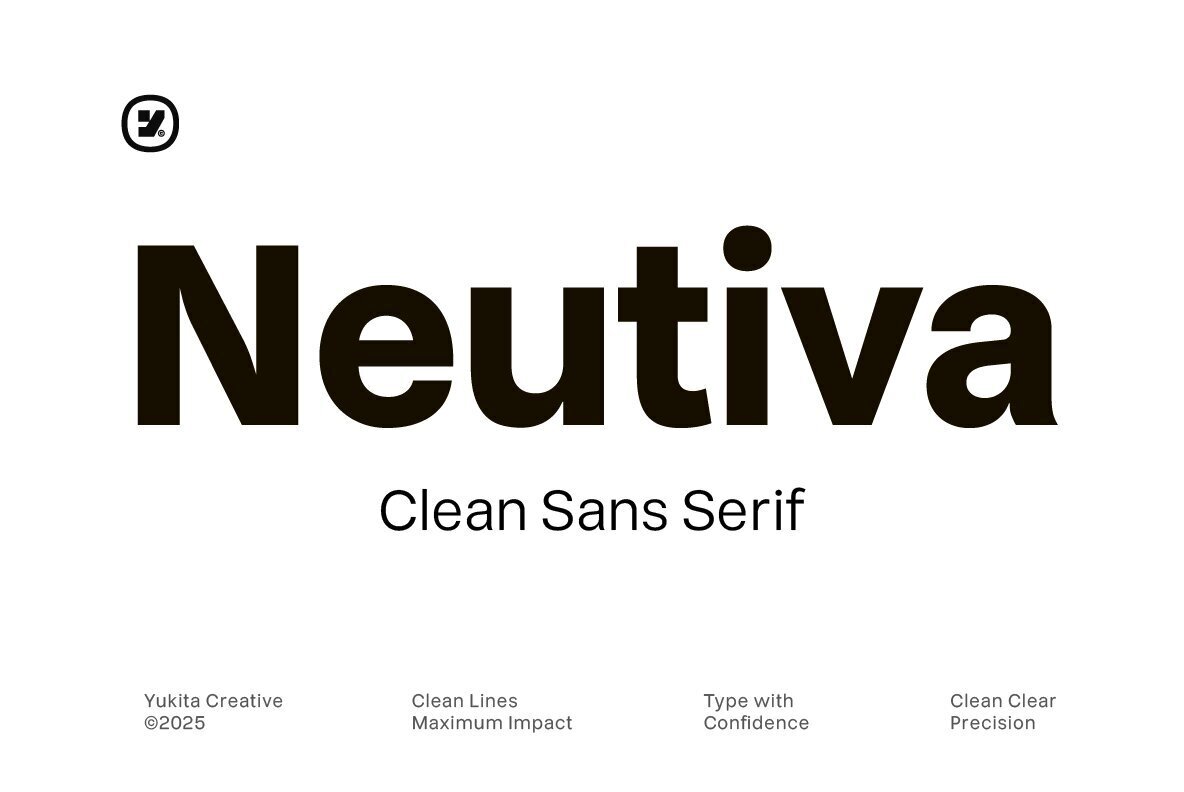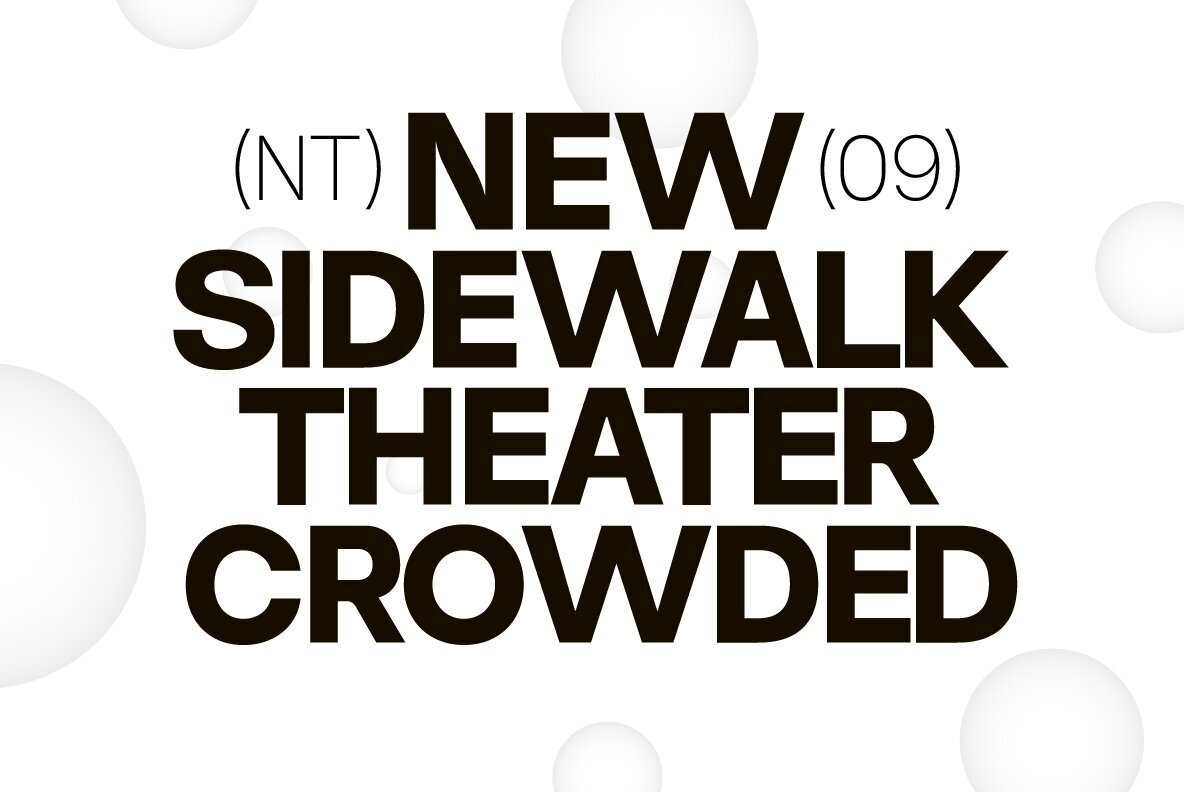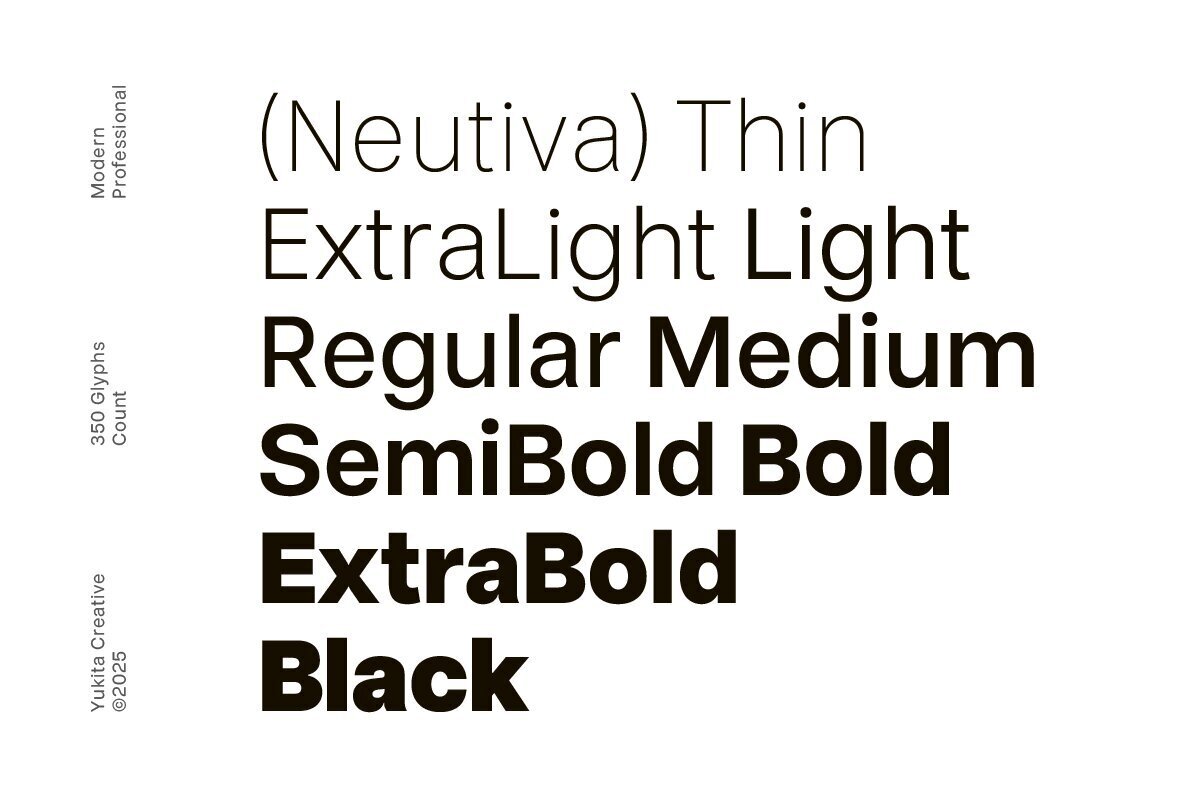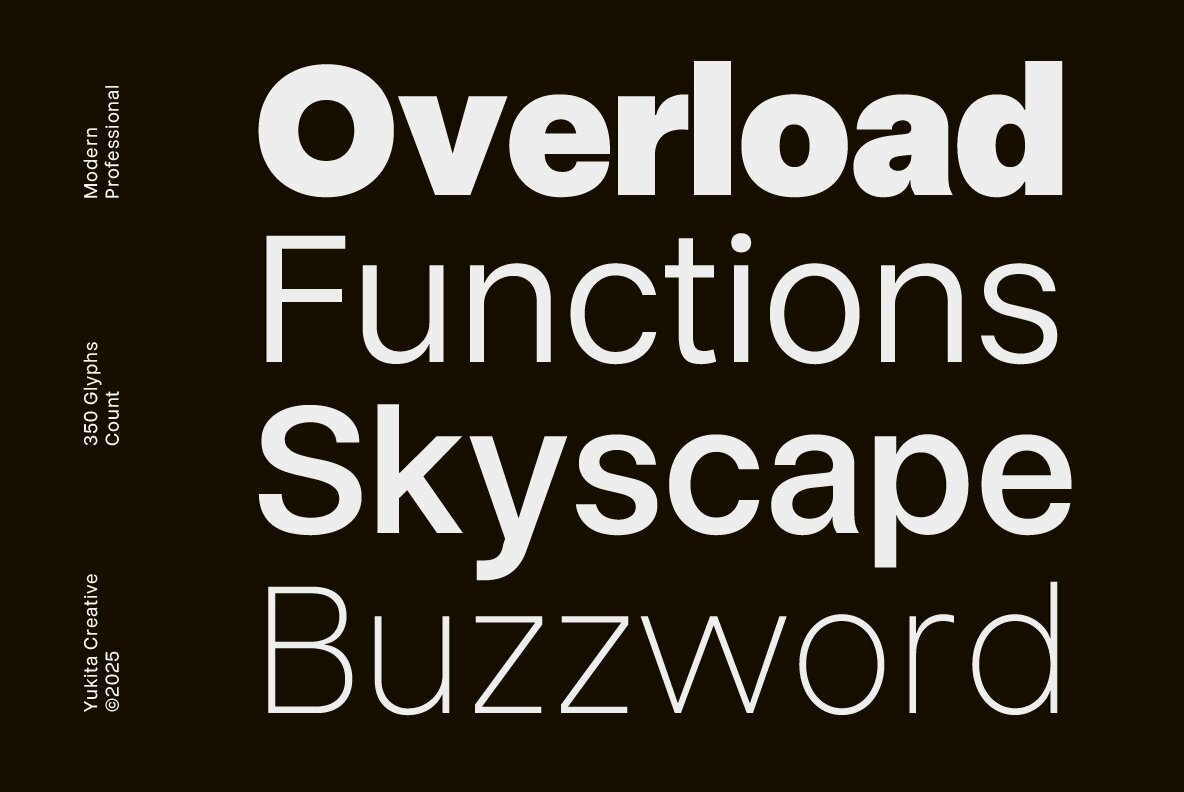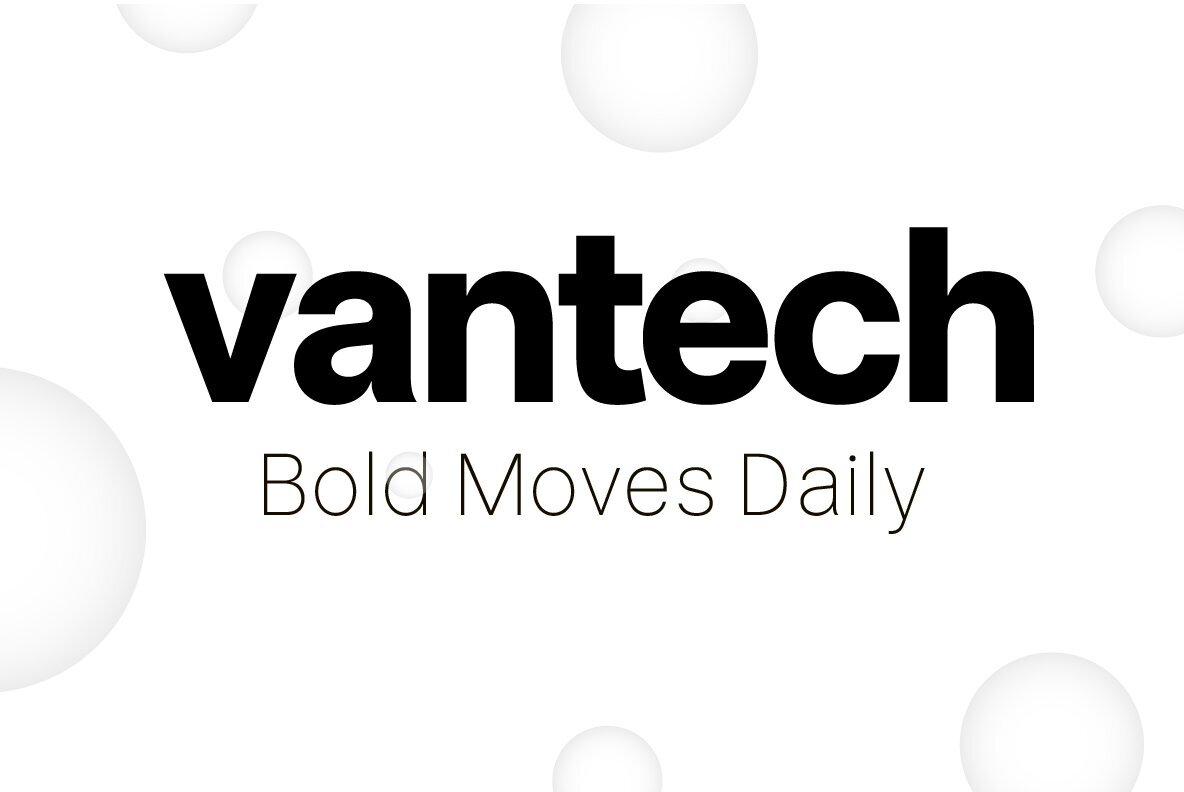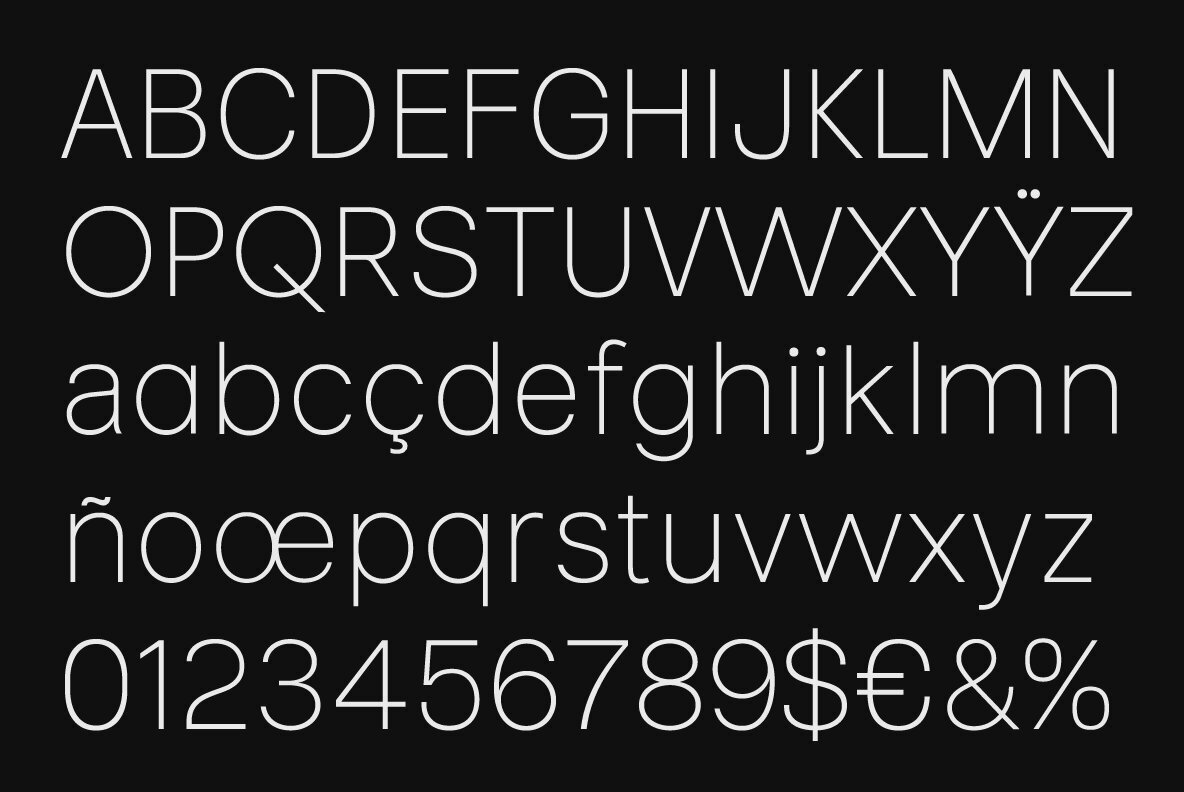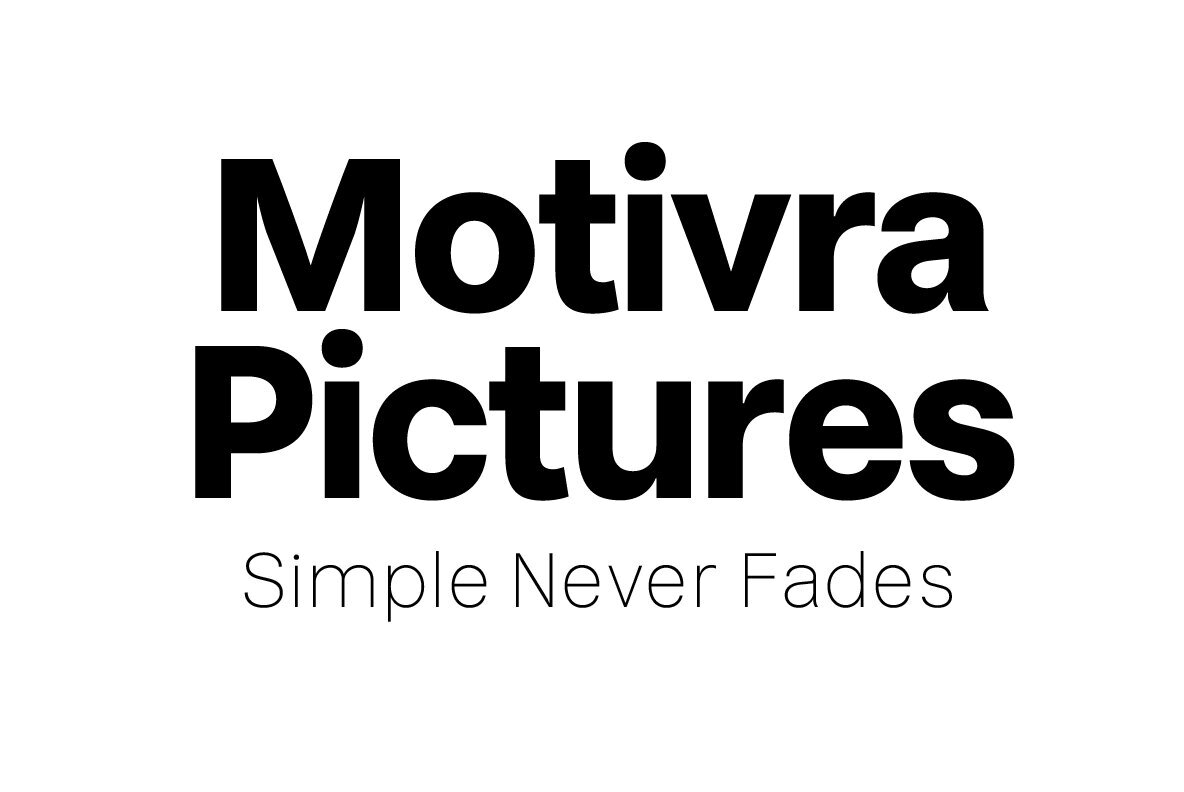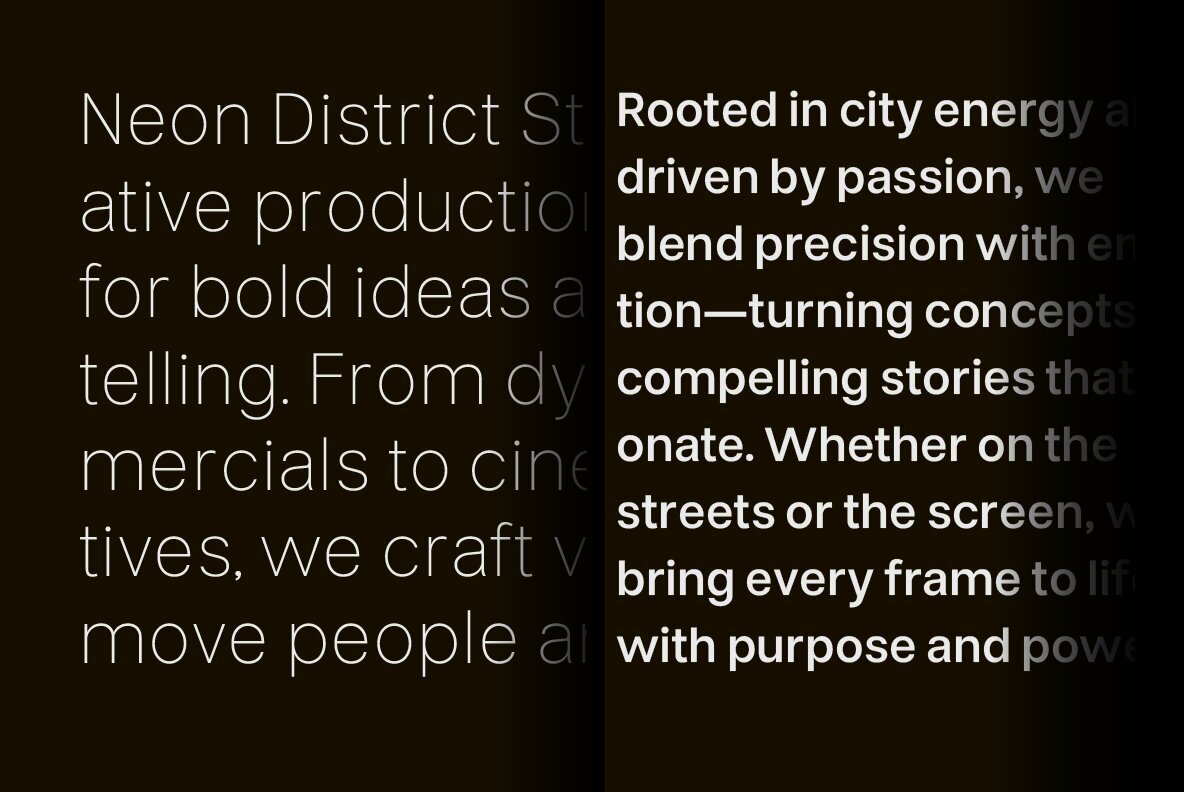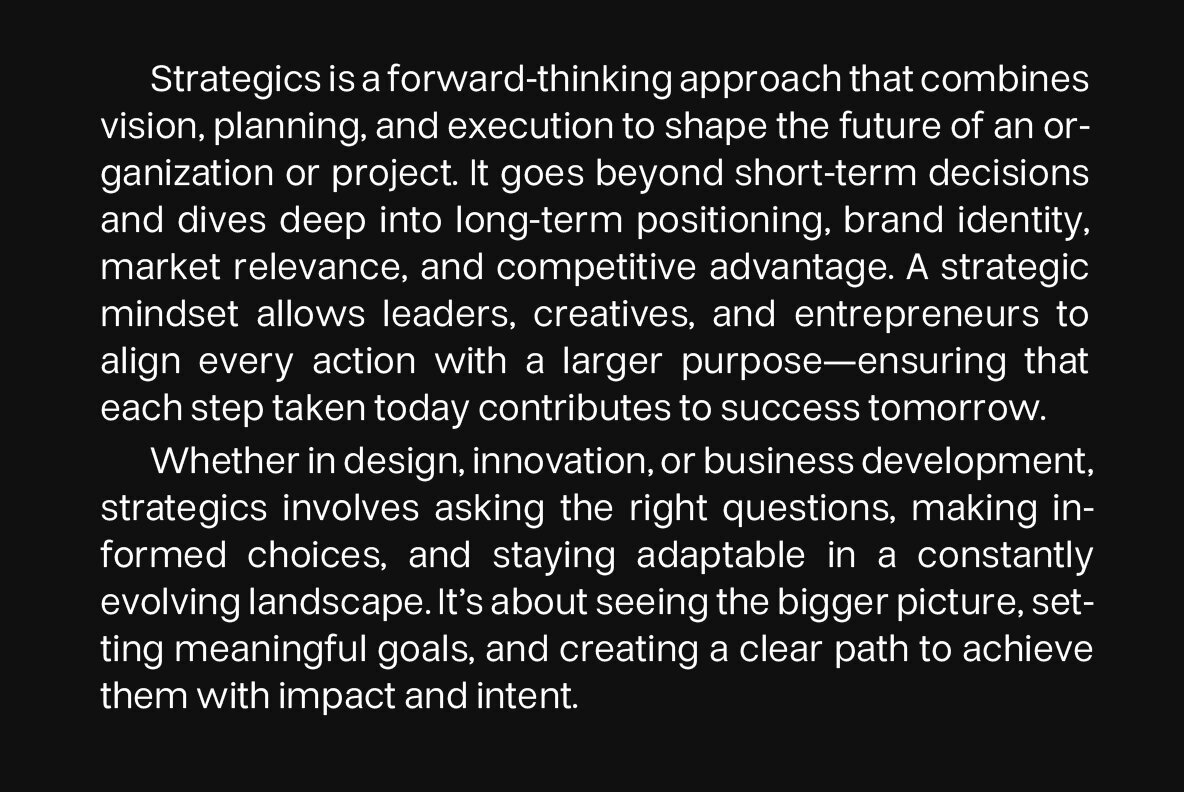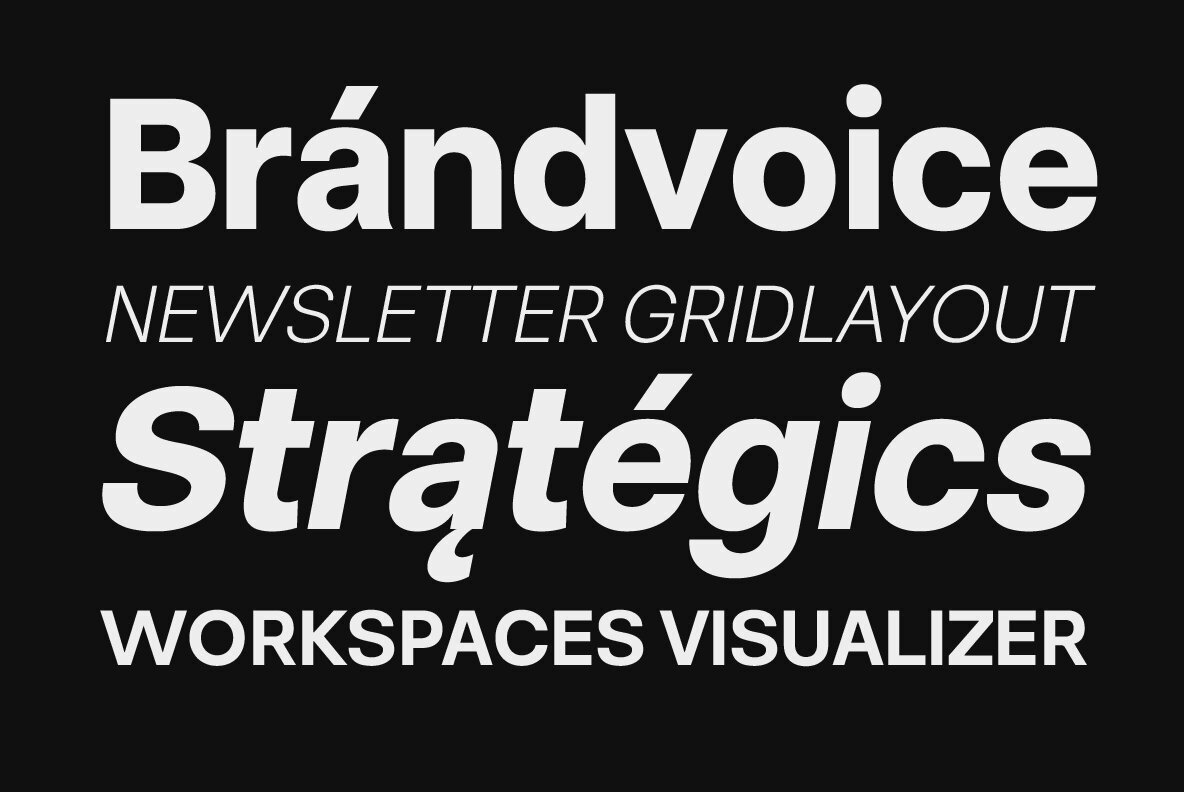
Neutiva Font
Neutiva presents itself as a modern sans serif font suited for any corporate, branding, or professional venture. Designed with precision, it embodies nine distinct styles, including Thin, Extra Light, Light, Regular, Medium, SemiBold, Bold, Extra Bold, and Black. As a Neo Grotesk typeface, Neutiva is marked by its superior readability and sleek contours. Its clean lines and contemporary design proportions enhance its usability in crafting company logos, corporate branding, and comprehensive business identities. Suitable for various platforms, whether building a corporate logo, furnishing a website header, or refining presentation designs, Neutiva offers a modern and versatile tone, adaptable across numerous mediums.Neutiva: Bold Style for Corporate Design